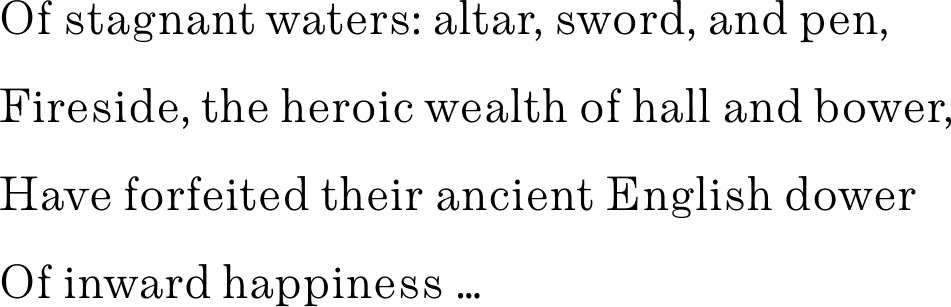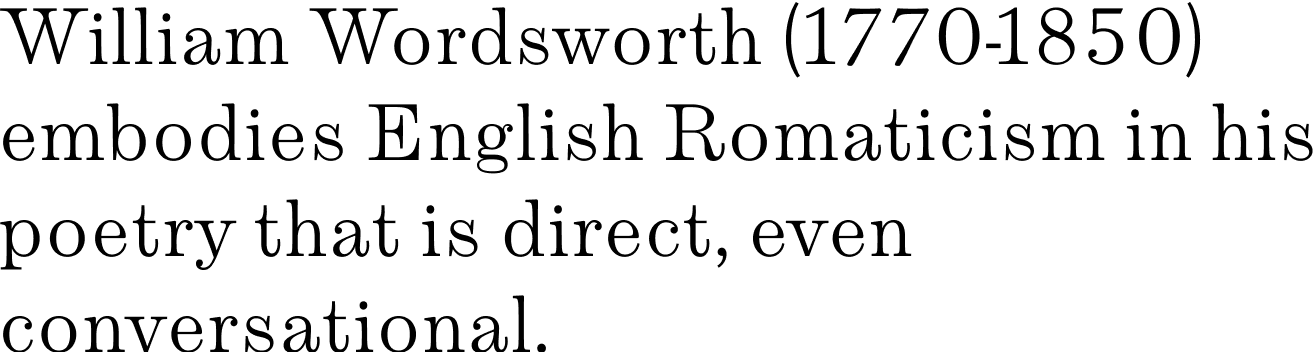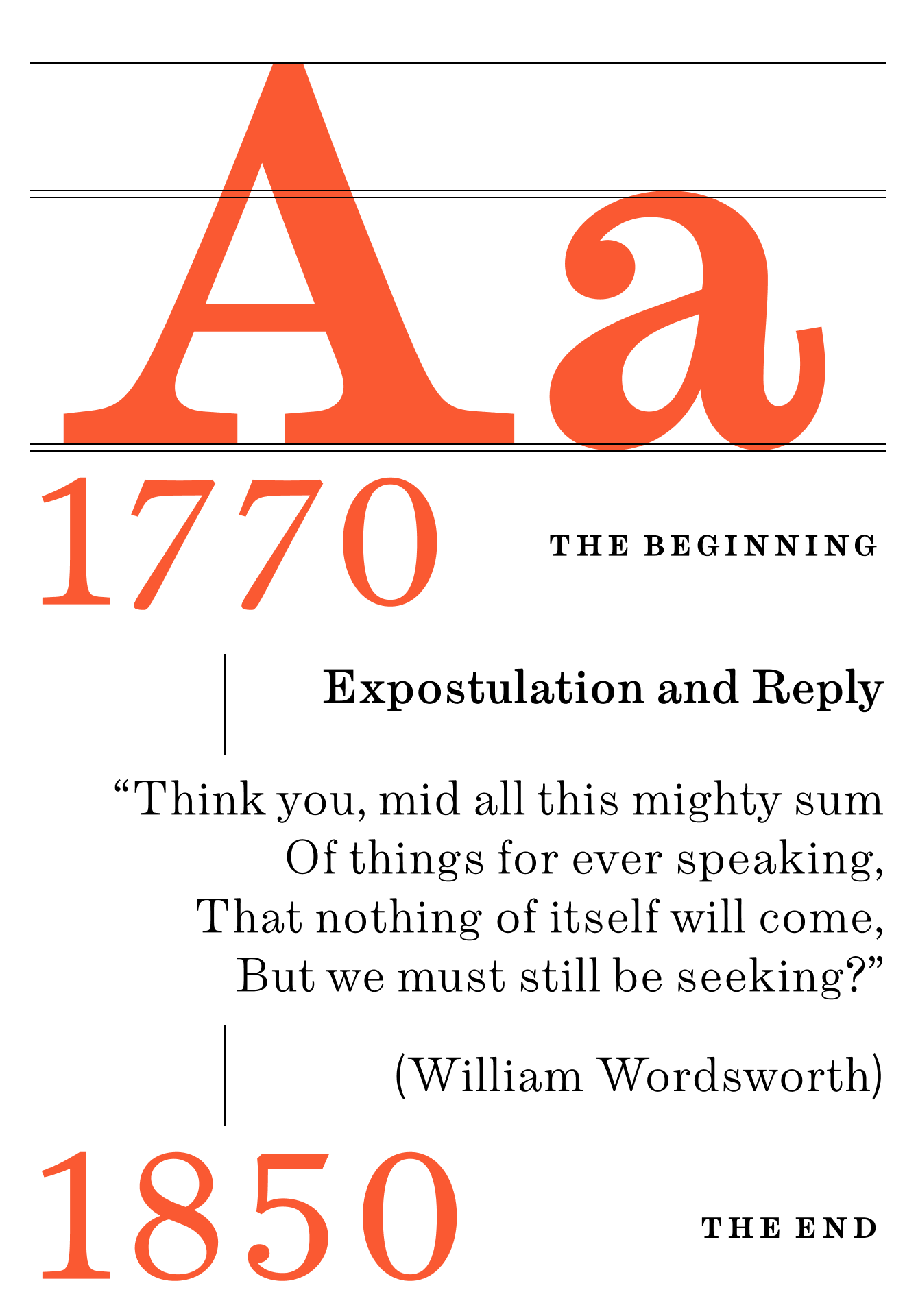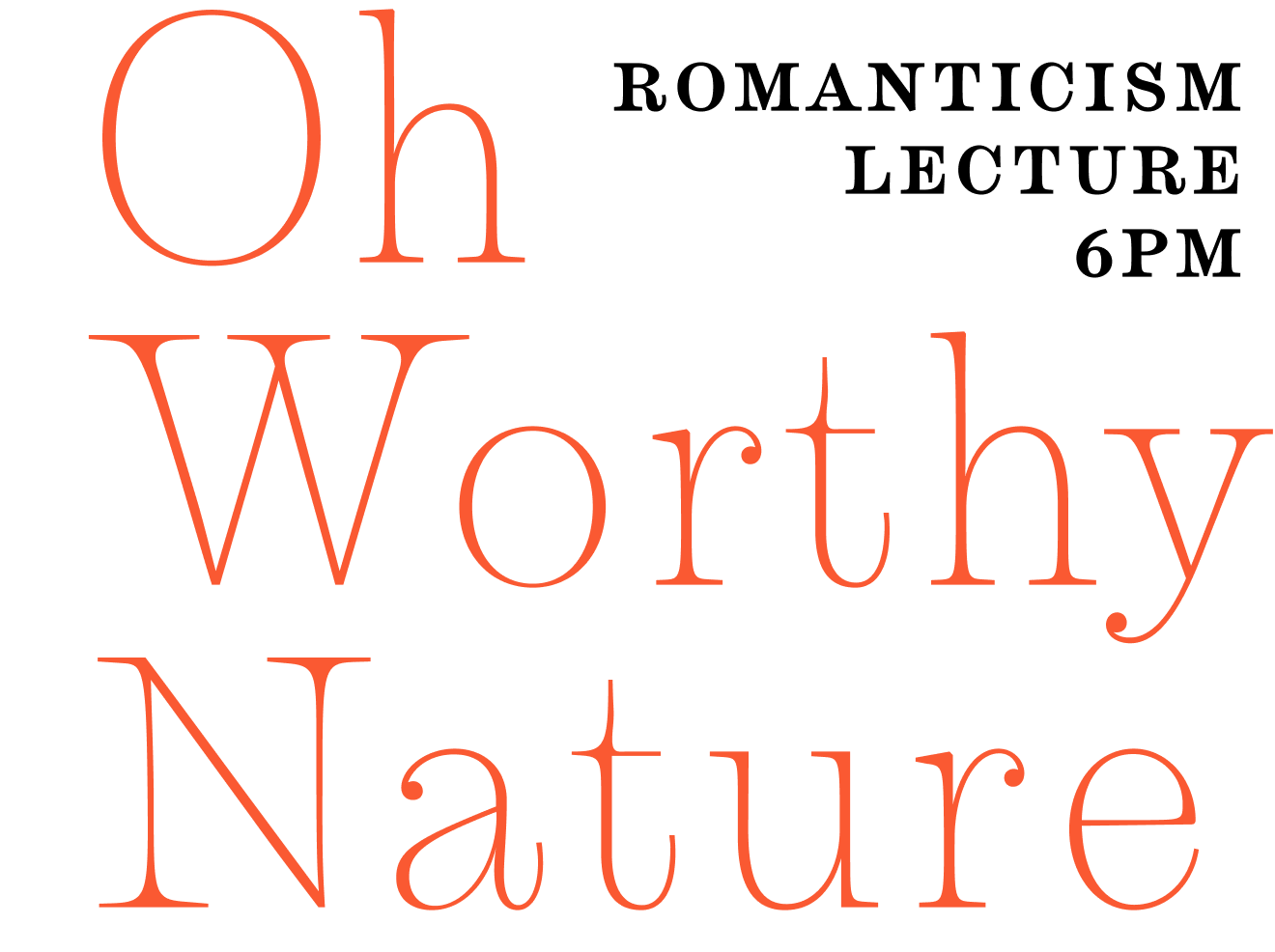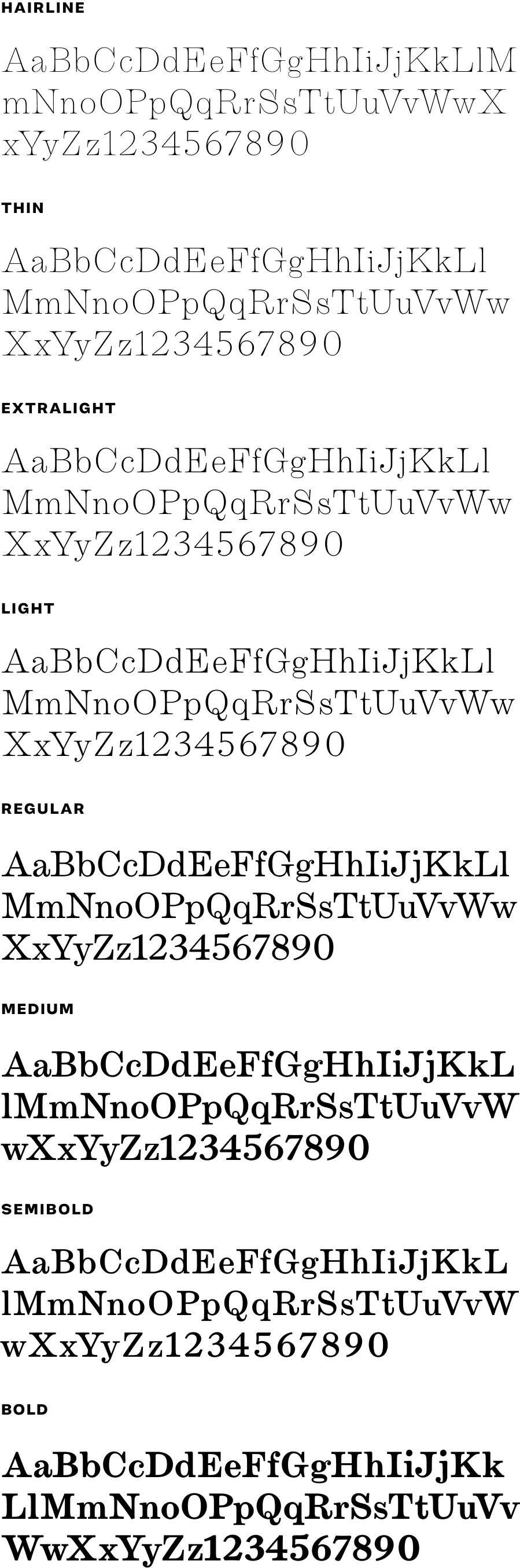
Emerson
Emerson came to be during my time at Type@Cooper. The typeface is a revival based on a book of poetry by Wordsworth originally printed in 1936. I am currently updating the typeface to have a more modern execution, while retaining the classic charm.